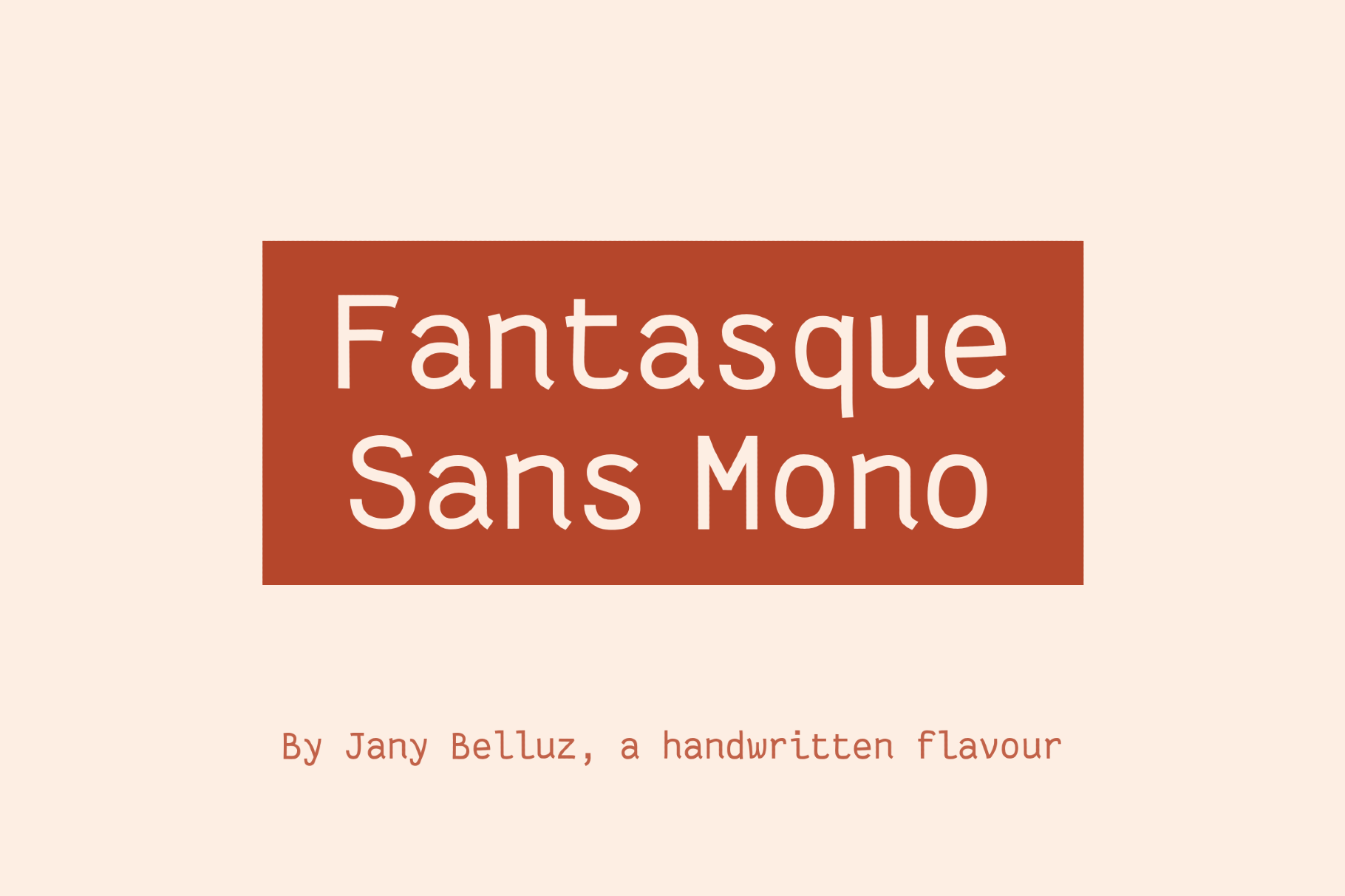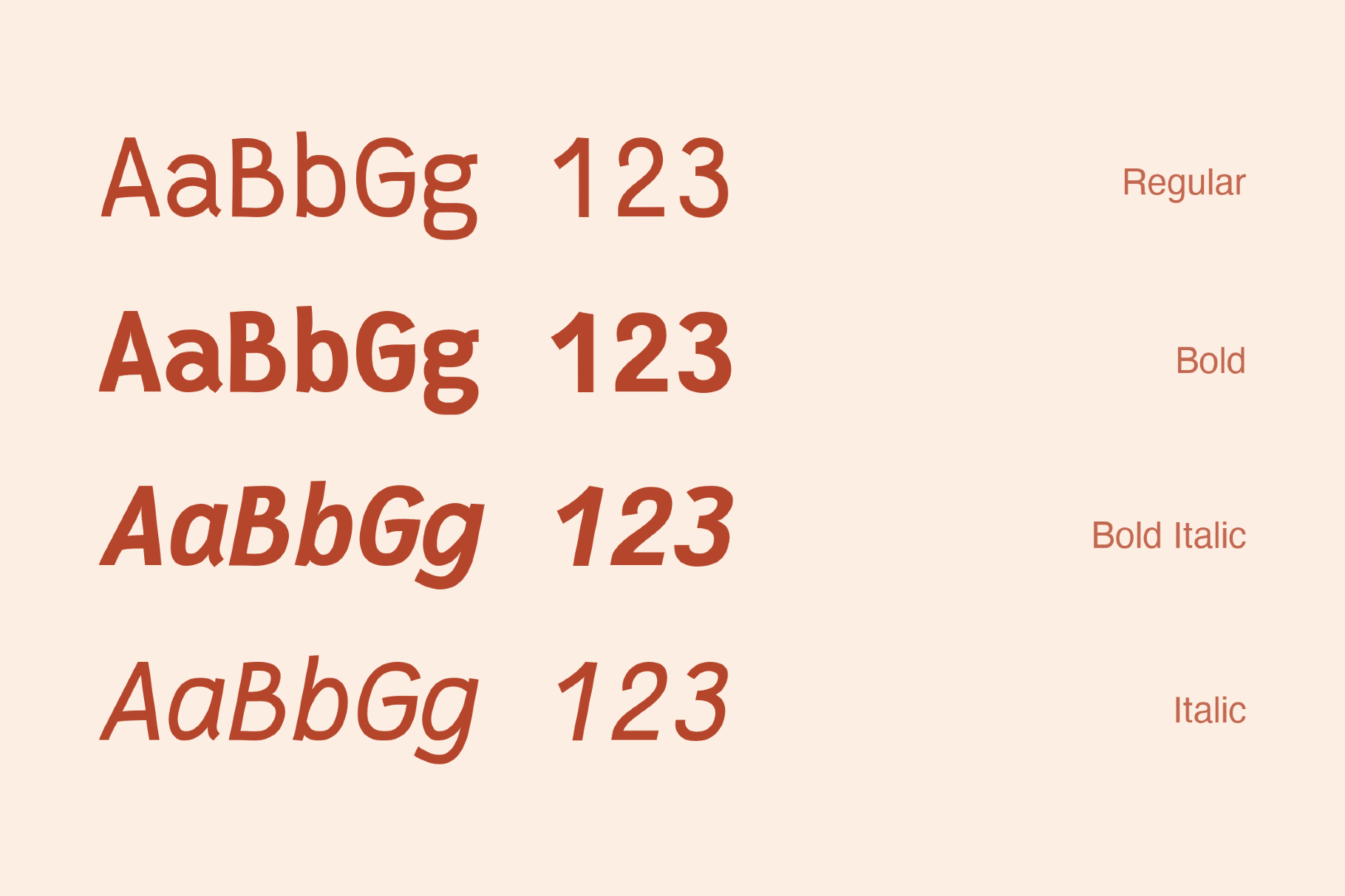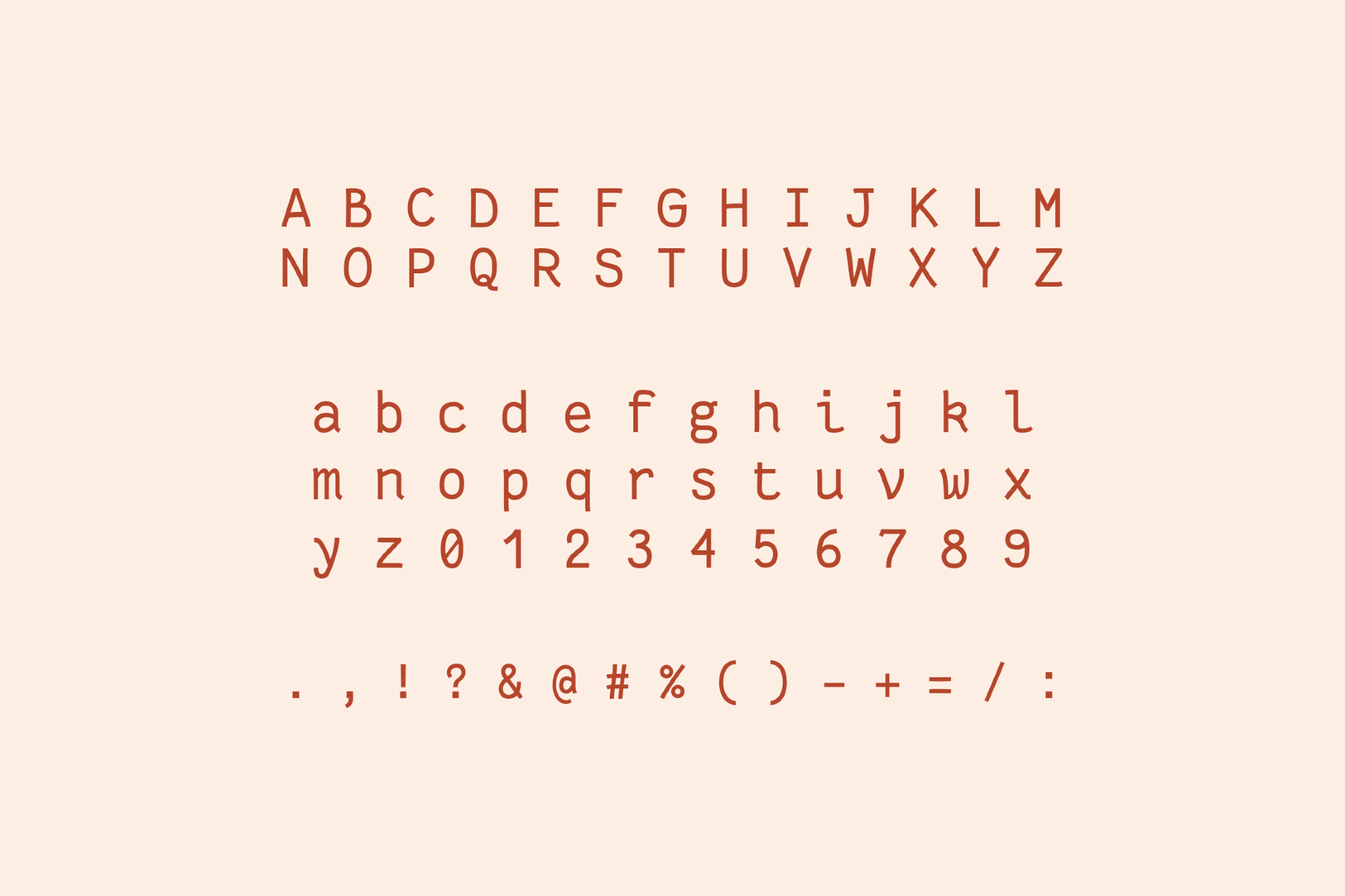
Fantasque Sans Mono Font Family
Fantasque Sans Mono keeps a deliberate wobble in its strokes, a handwriting-like fuzziness inspired partly by Inconsolata and Monaco but drawn with personality. That looseness makes it a favorite among developers who want their terminal or editor a little less sterile, without sacrificing the clear letter shapes coding demands.
The font works for indie developer branding, coding livestream overlays, personal blog headers, terminal theme showcases, zine layouts, hand-lettered-style UI mockups, hackathon graphics, dev tool logos, and code editor marketing.
- 3 styles: Regular, Bold, and Italic;
- uppercase and lowercase letters;
- accented Latin characters, Greek letters, and arrow symbols;
- a stylistic alternate for a nondescript lowercase k.